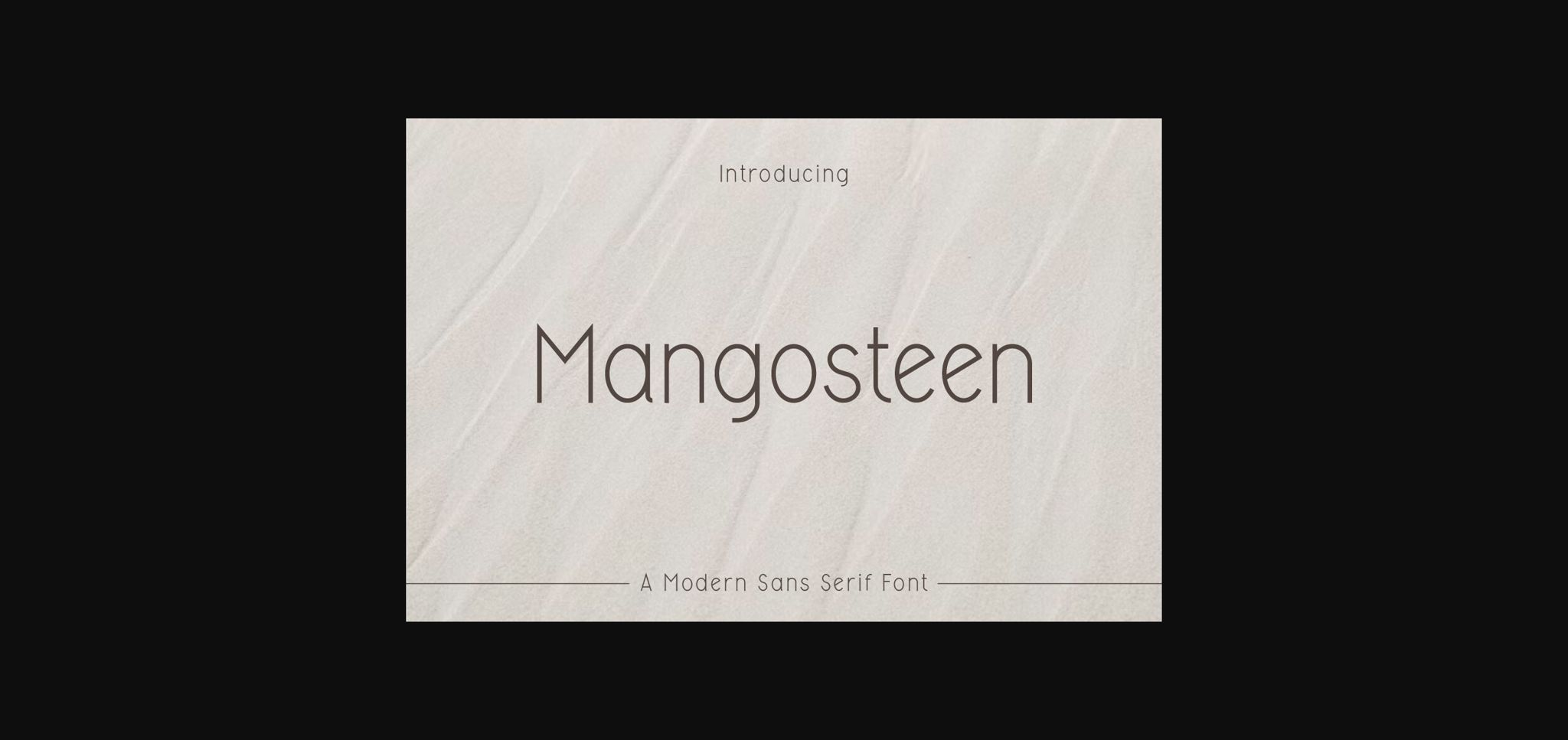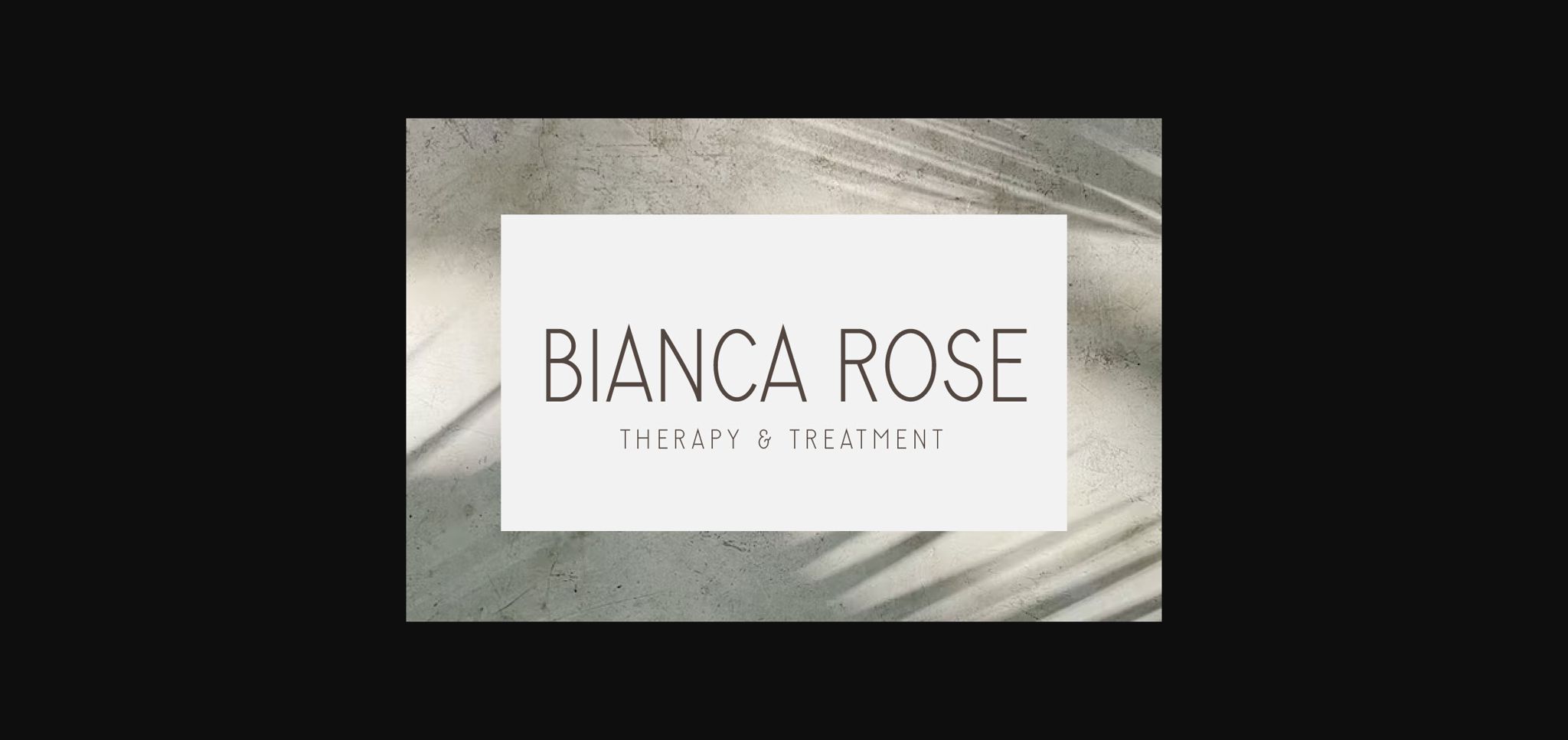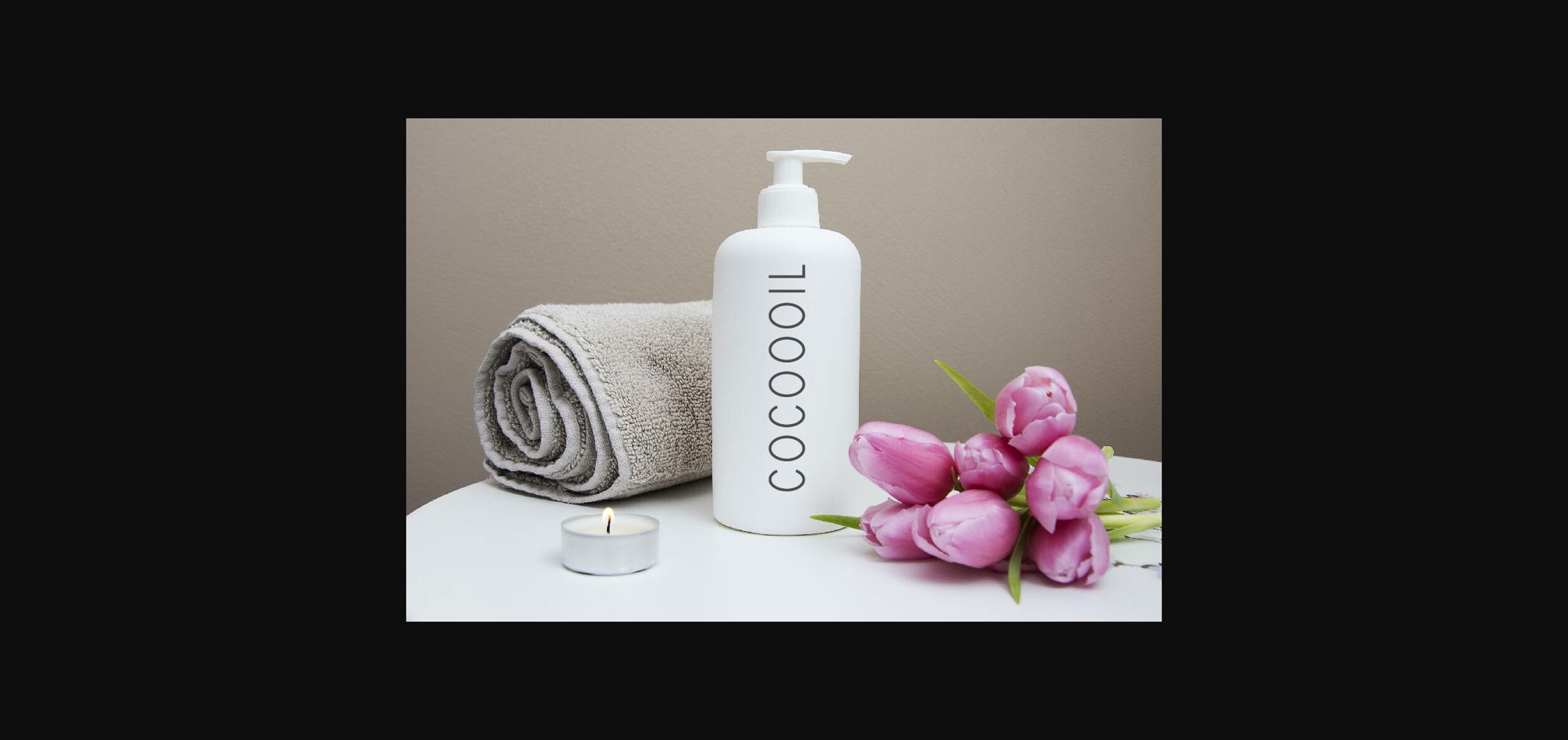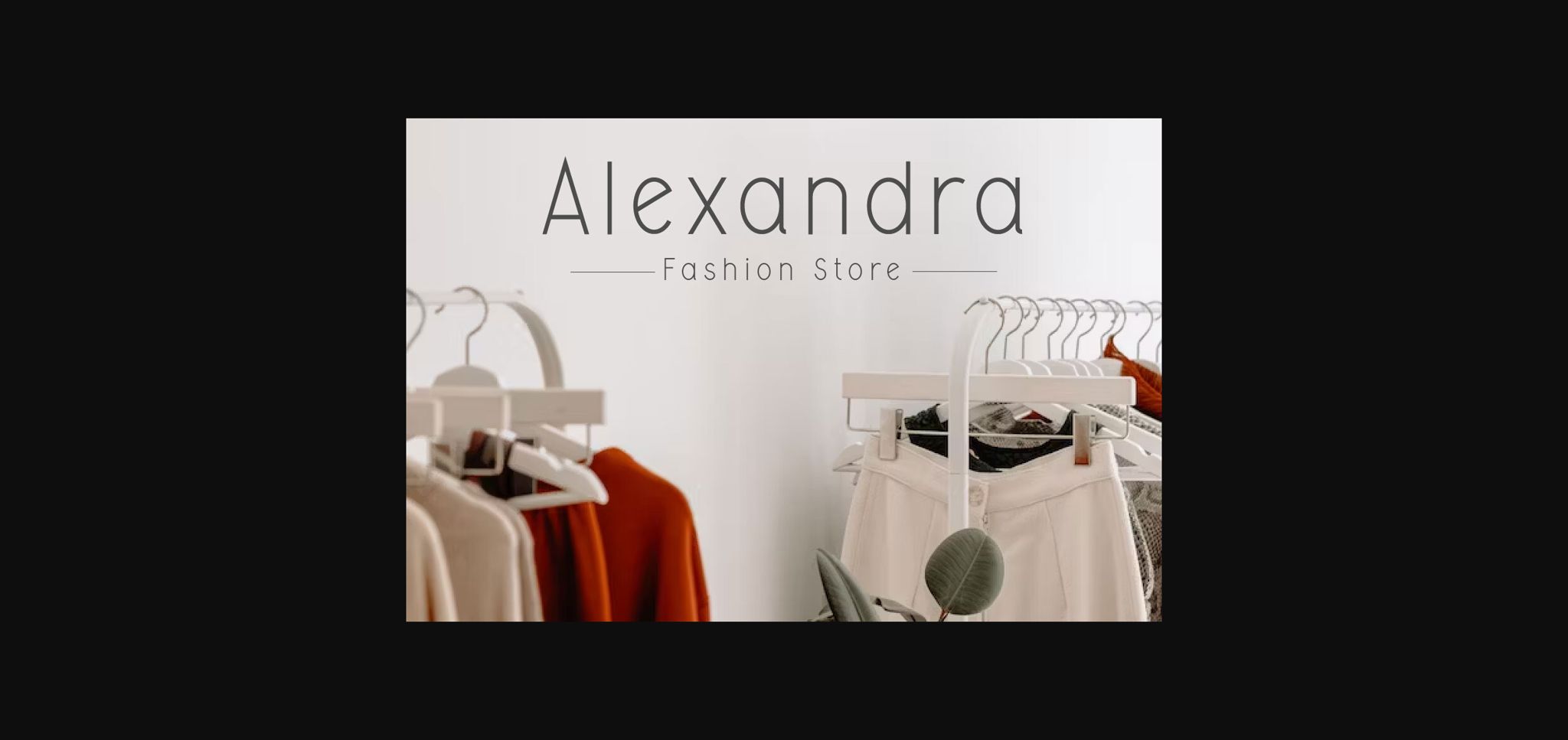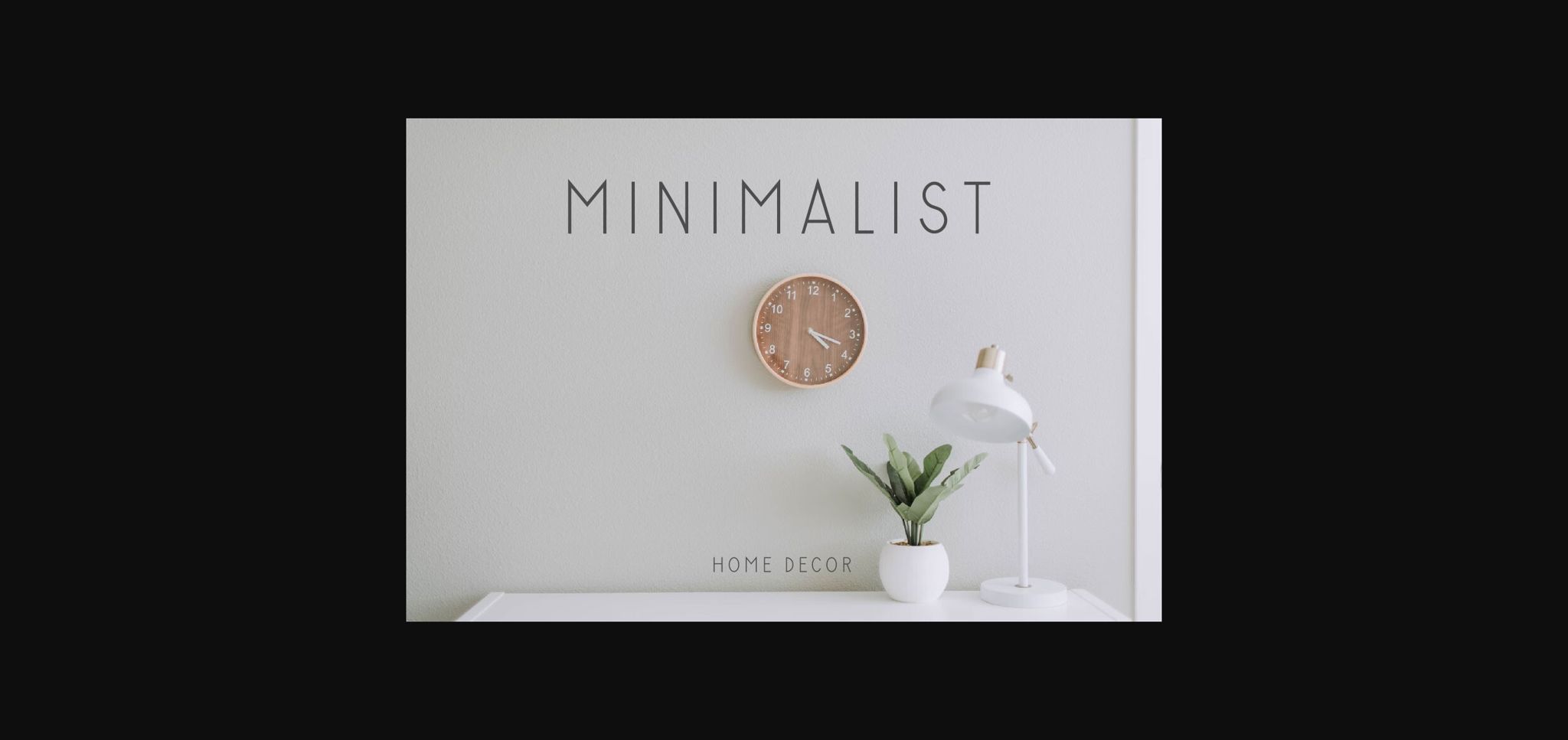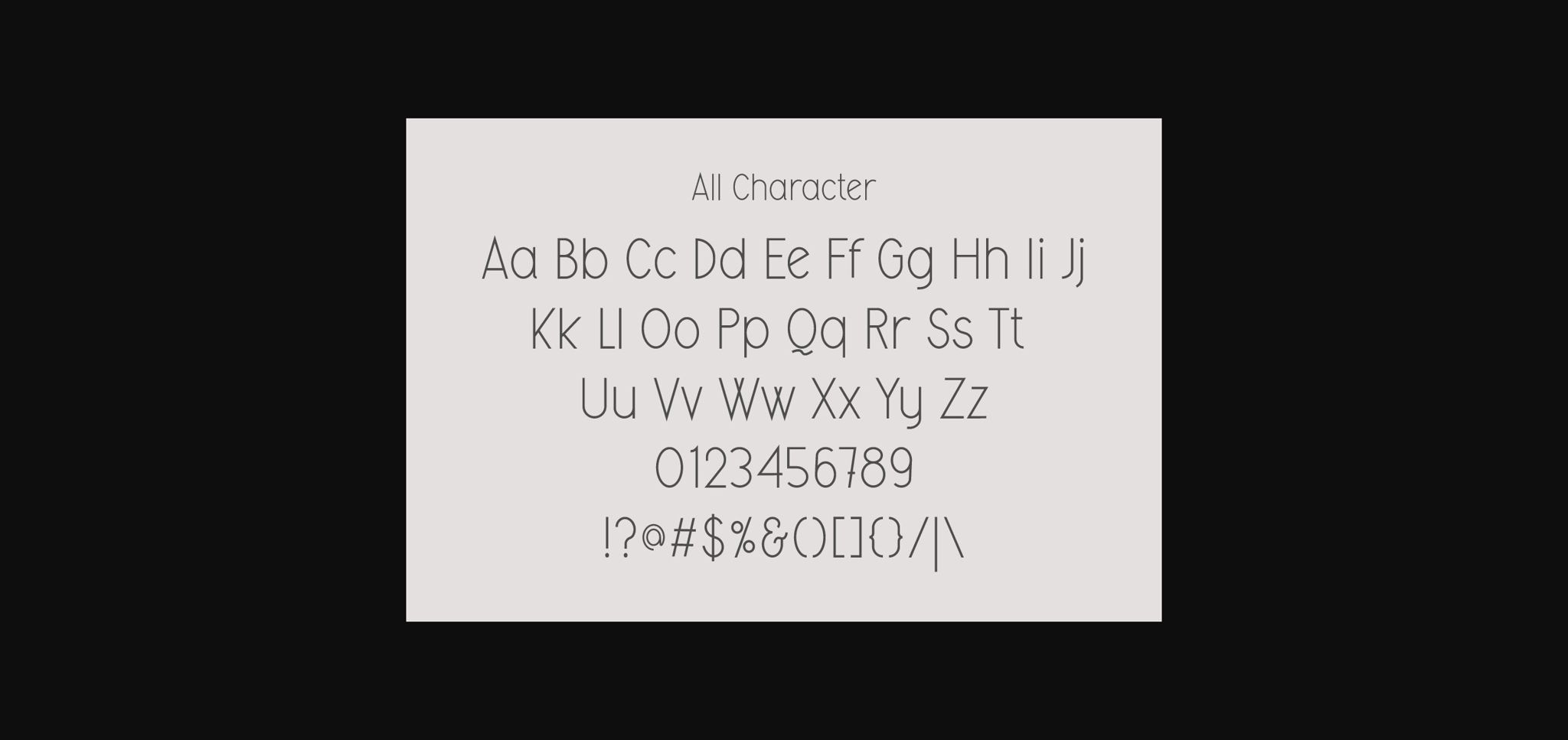
Mangosteen Font
About Mangosteen Font
Mangosteen is a simple and modern sans-serif font designed for a clean retro look. With its vintage balanced proportions, this font is perfect for creating a minimalist aesthetic in crafted design, fashion, mug, wedding invitation, home decor, logos, quotes, t-shirt, gift labels, logos, web design, branding and more!